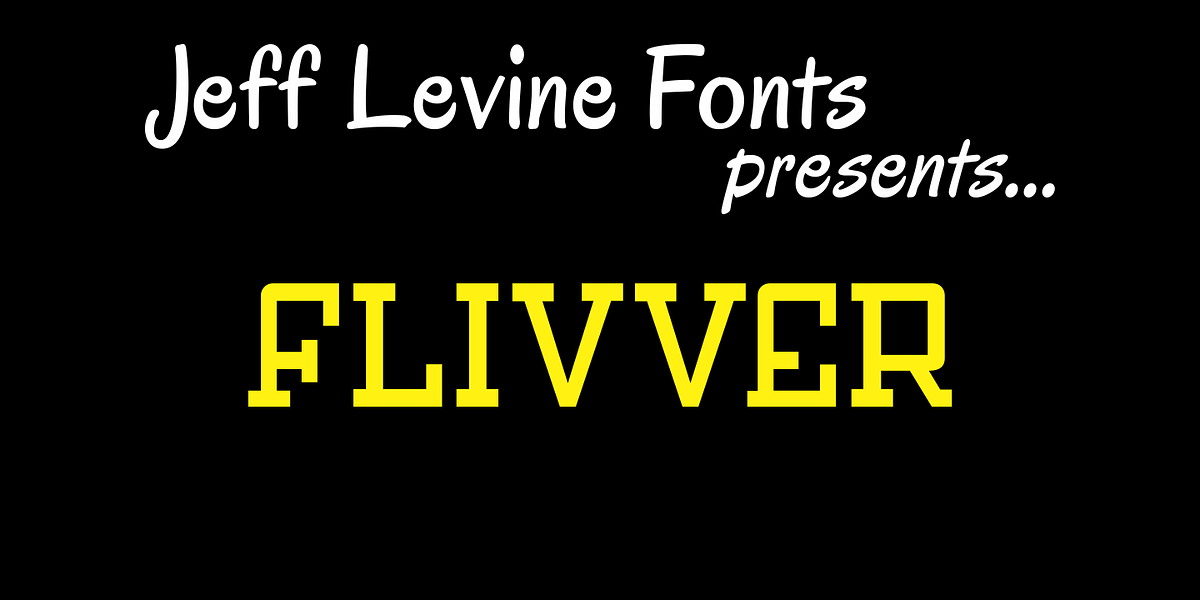
Flivver JNL
Flivver JNL takes its name from the slang term applied to Model T’s in the 1920s, and it’s design is a first-cousin to Two Reeler JNL (inspired by lettering on titles from a Charlie Chaplin silent film).